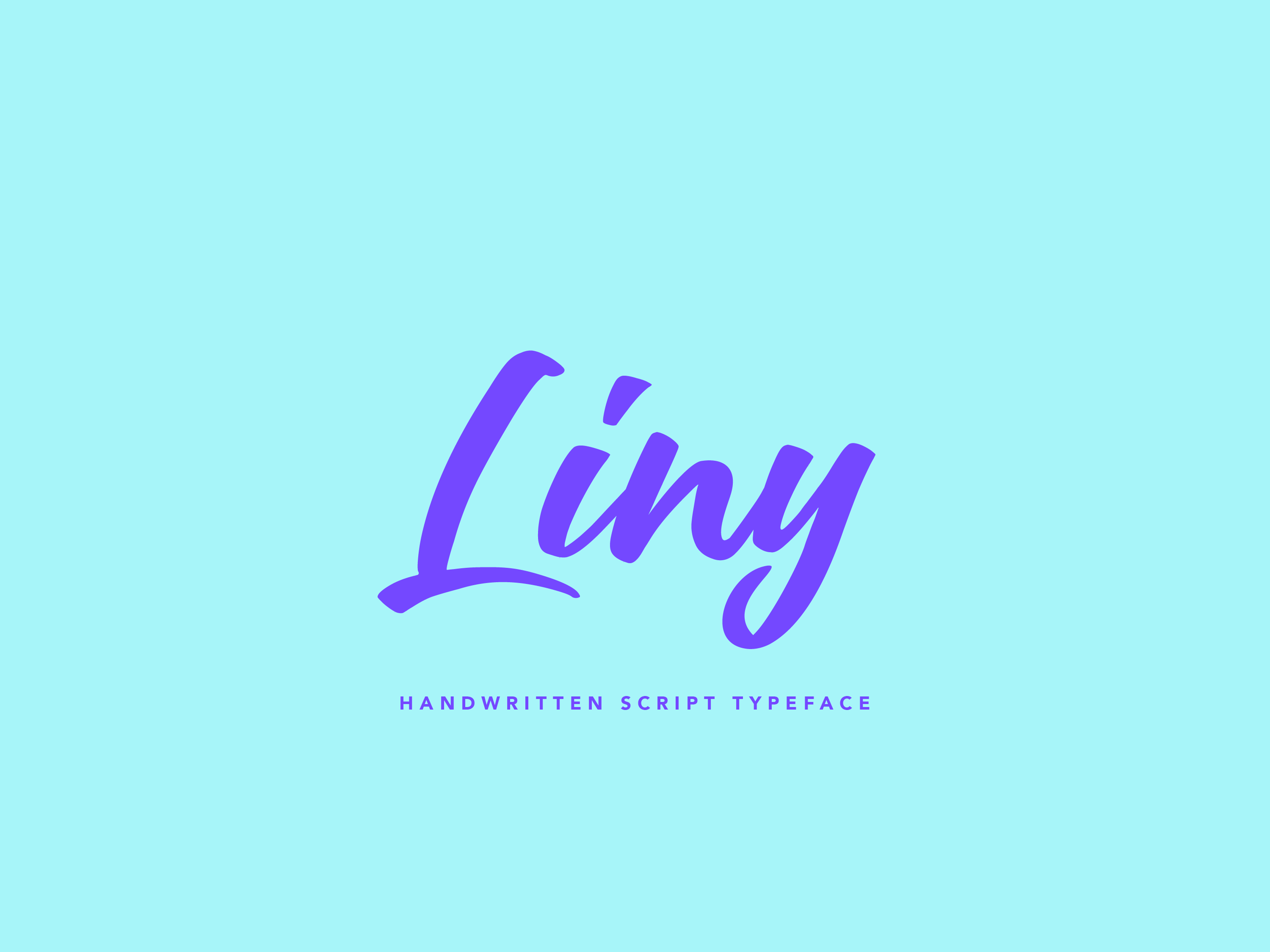
Liny Script Font
Liny Brush Font – A Beautiful Handwritten Script
Liny Brush Font is a beautiful script created with love, offering a natural handwritten touch that brings warmth and personality to your designs. Perfect for headlines, apparel, invitations, branding, wedding designs, logos, and more, Liny is ideal for any project that requires a personal, artistic feel.